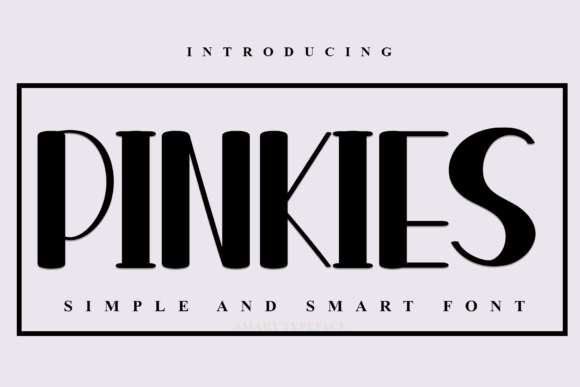
Pinkies: A Playful and Chic Display Font Duo for Your Creative Projects
Step into a world of cheerful elegance with Pinkies, a display font duo that captivates hearts and sparks imagination. Designed by the talented FreshTypeINK, Pinkies is a perfect match for those seeking a font that exudes both sophistication and playfulness.
This dynamic duo consists of two fonts that harmonize beautifully, empowering you to craft designs that leave a lasting impression. Whether you're a seasoned designer or a creative enthusiast, Pinkies will elevate your projects with its charm and versatility.
Unleash your creativity with Pinkies, the go-to font for business signs that demand attention. Its bold and eye-catching characters command presence, ensuring your message stands out from the crowd. Whether you're promoting a new venture, announcing a special offer, or simply sharing your brand's story, Pinkies will make sure your signs radiate charisma and professionalism.
Beyond business signs, Pinkies shines in a myriad of creative applications. Its playful and inviting nature makes it ideal for crafting cheerful invitations, heartwarming greeting cards, and vibrant posters. Let Pinkies infuse your designs with a touch of whimsy and delight, leaving your audience smitten and inspired.
The PUA encoding of Pinkies grants you effortless access to a treasure trove of glyphs and swashes. Unleash your imagination and explore endless possibilities to embellish your designs with intricate details and flourishes. Add a touch of elegance to your invitations, a hint of magic to your posters, or a dash of personality to your branding materials.
With Pinkies by your side, you'll embark on a creative journey where joy and professionalism intertwine. Its versatility and charm will transform your designs into captivating masterpieces, leaving your audience enticed and eager for more. Embrace the power of Pinkies today and unlock a world of creative possibilities.